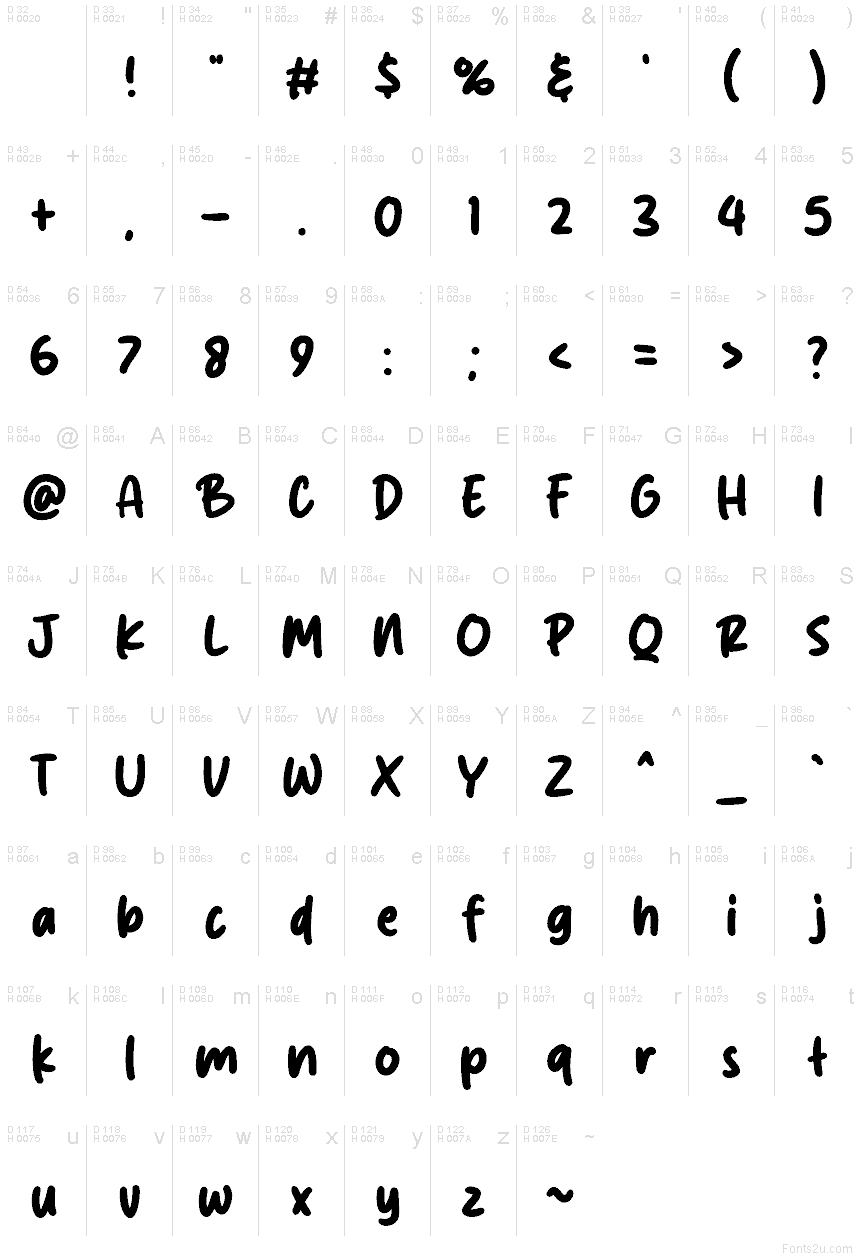
Milk Cake
Milk Cake font by MJType is a free handwritten typeface with thick, inky strokes and soft, rounded edges. It feels playful and a little gooey—like marker lettering on a bakery chalkboard—while staying bold enough to hold its own at a glance. The rhythm is steady and friendly, giving headlines a cozy, human touch without turning messy.
Using Milk Cake, you’ll get charming results for bakery logos, cafe menus, product packaging, birthday invitations, kids’ book covers, and cheerful social posts. The chunky forms read well at medium sizes and shine on stickers and signage where you want warmth over polish. Pair this free font with a clean, condensed sans to handle small details and let the hand-drawn letters do the talking.